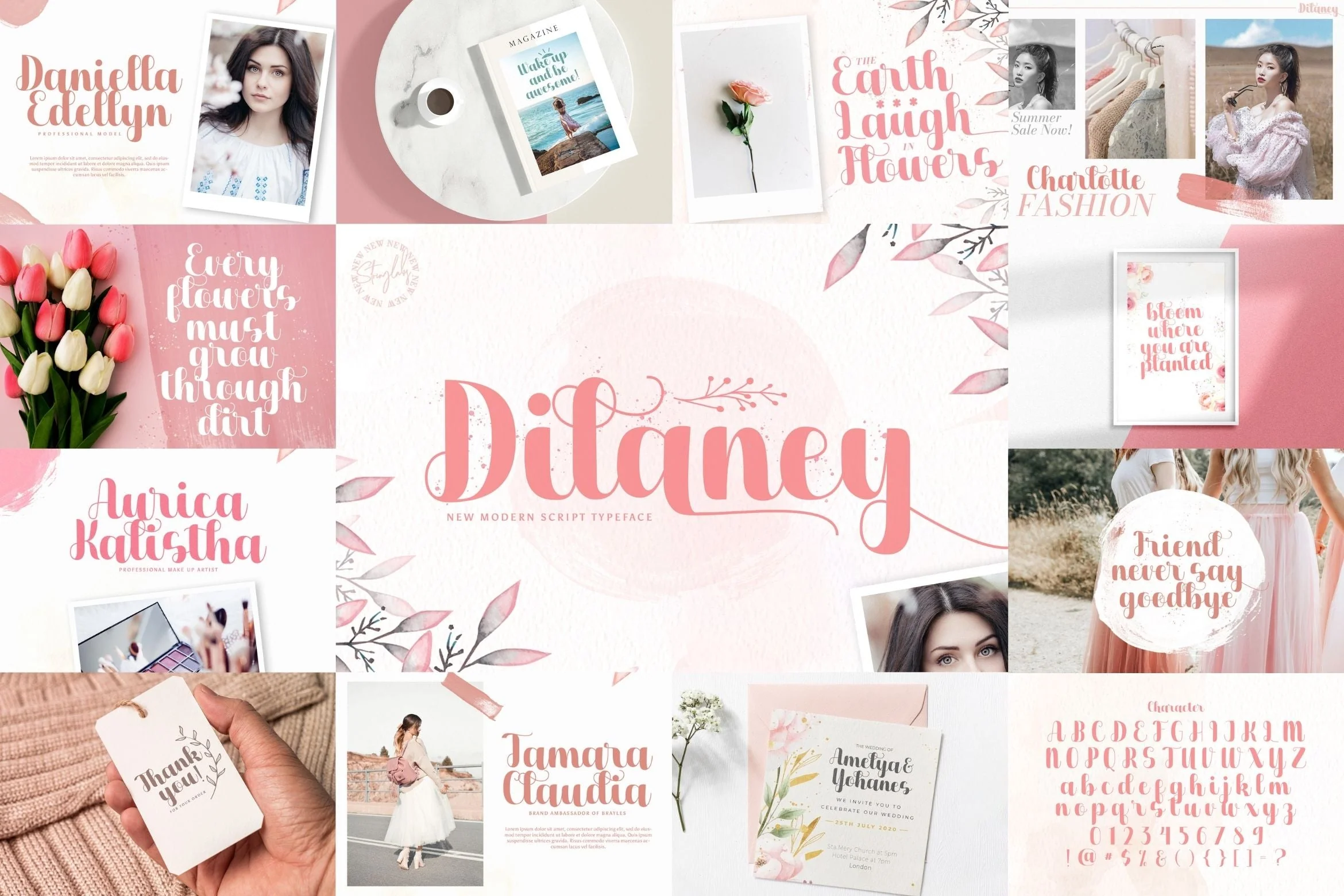
Handwritten Font Bundle Vol 2
Handwritten Font Bundle Vol 2 is a delicate, elegant and flowing handwritten font. This font bundle contains 8 high quality handwritting script font, it will look simply magical in a wide range of design projects, and also that will look particularly adept when used in logos, branding, packaging design, and much more. It has beautiful and well balanced characters and as a result, it matches a wide pool of designs. Add it to your most creative ideas and notice how it makes them come alive!
1. Cinta Monyett
2. Stranger
3. Saturday Crush
4. Ratri Volutten
5. Dilaney
6. Bintang Kejora
7. Astria
8. Ameliya